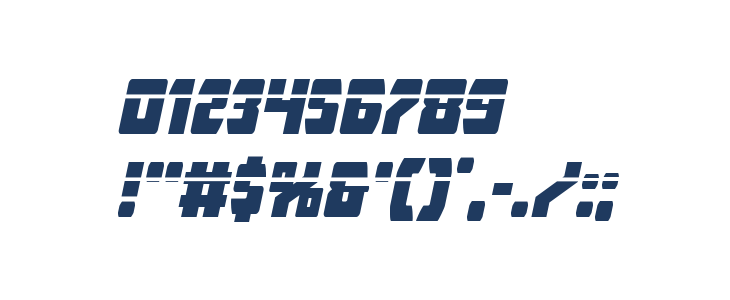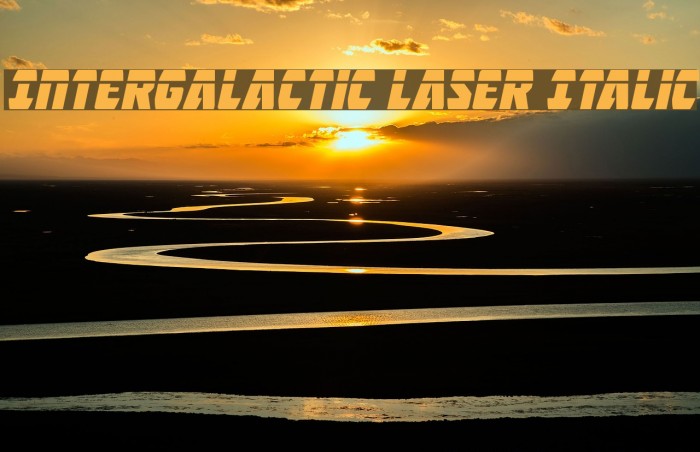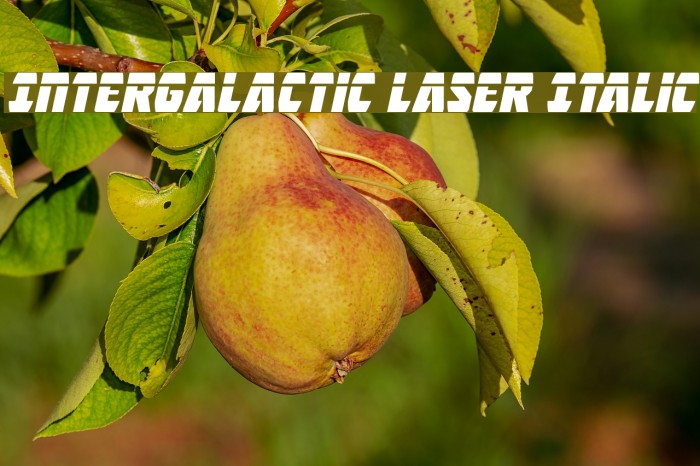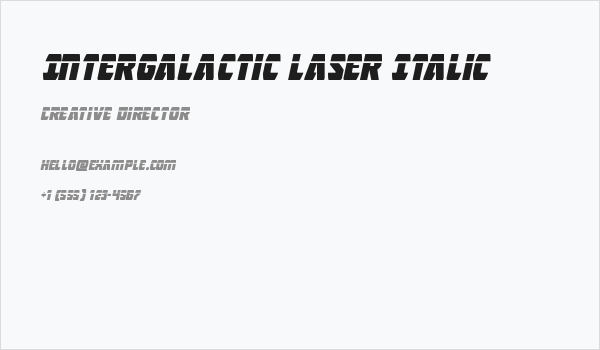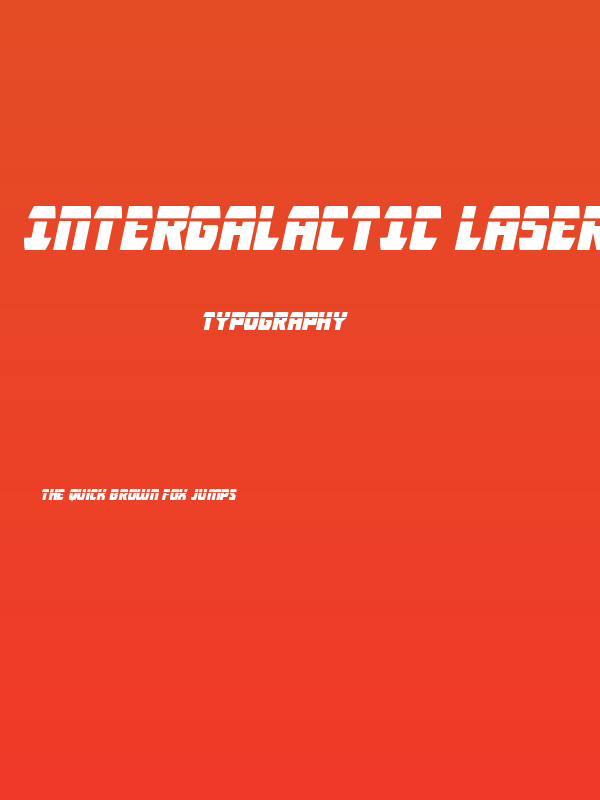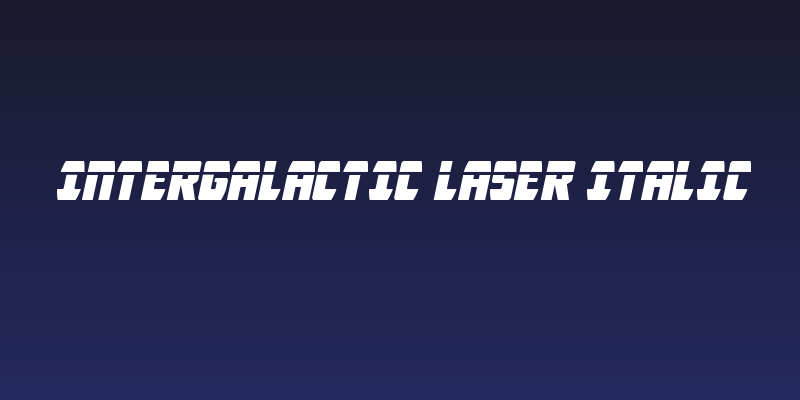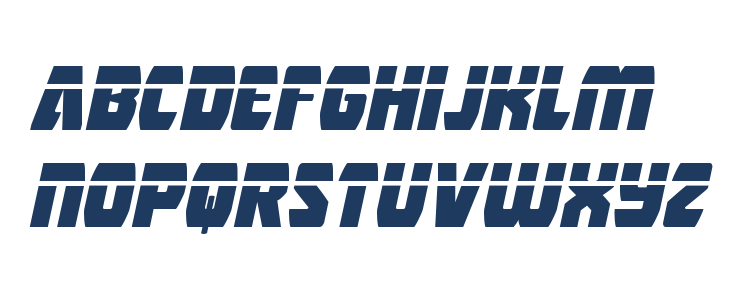
Intergalactic Laser Italic Font
Intergalactic Laser Italic Description
This font features a bold, futuristic design with a distinct italic slant, giving it a dynamic and forward-moving appearance. The characters are wide and blocky, with sharp angles and a consistent stroke width that conveys strength and modernity. The uppercase and lowercase letters maintain a uniform style, enhancing readability while preserving a unique aesthetic. The numbers and special characters are crafted with the same boldness and angularity, ensuring a cohesive look across all elements. This font is ideal for projects that require a strong, modern, and slightly aggressive visual impact.
| Proposed Projects | Ideal for sci-fi themed designs, video game titles, technology branding, and futuristic posters. |